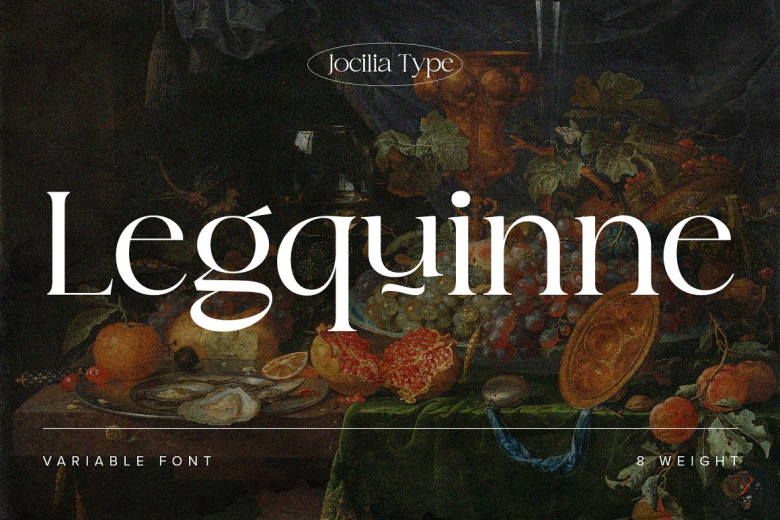
Legquinne Font
Legquinne Font was designed and created by Jolicia type. This elegant, modern, contrast font is multi-purpose and makes an impactful statement about any project you undertake. There are eight weights and variables to showcase its varied flavors; there are 429 total glyphs, supporting 93 languages – you could use this font for logo design purposes such as advertising campaigns, book covers or headings and descriptions.
Legquinne Serif Font